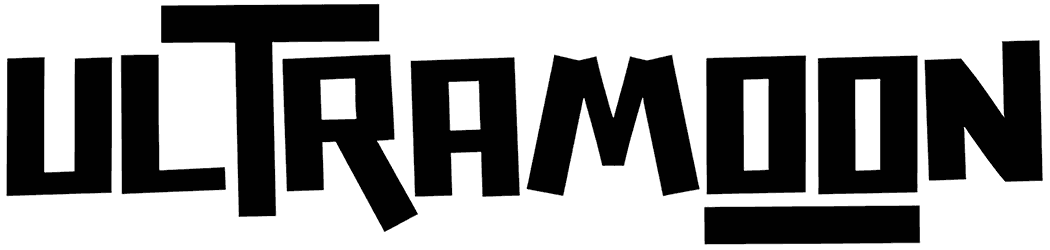
Ultramoon Font
Ultramoon is a marvelous cartoon font that comes with a geometrical style and looks too captivating for any kind of creative idea. Since this all-caps square font comes with a sense of dynamic, modernity, jauntiness, or vitality, it can easily boost the visibility of your content.